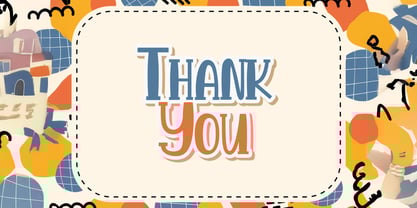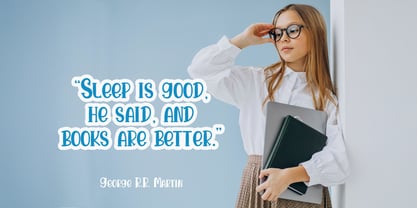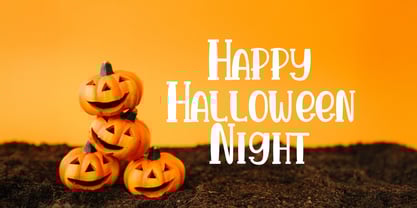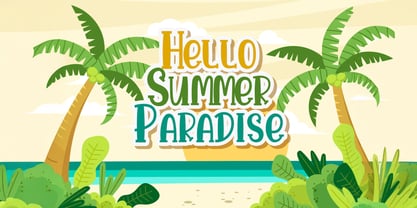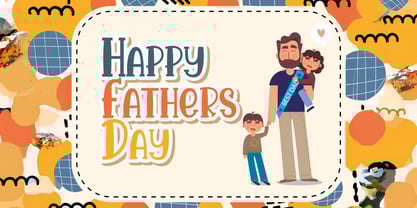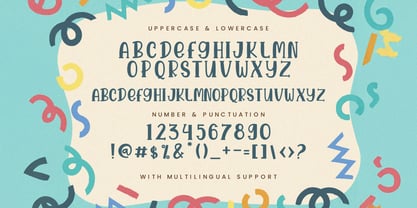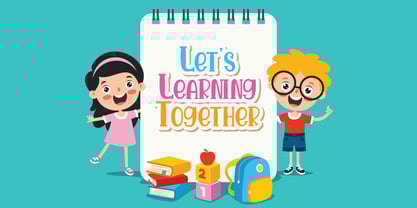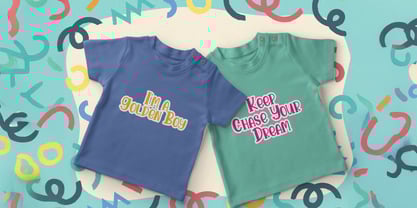
Die Schriftfamilie Sri Candy wurde von Virgiawan Listanto entworfen und von Stringlabs Creative Studio veröffentlicht. Sri Candy enthält 1 Stile.
Sri Candy is a playful display font that brings an extra dose of fun to your designs! With its rounded shapes and bubbly style, this font adds a delightful, lighthearted touch to any project. Its whimsical charm makes it ideal for projects that need a burst of color, fun, and personality.